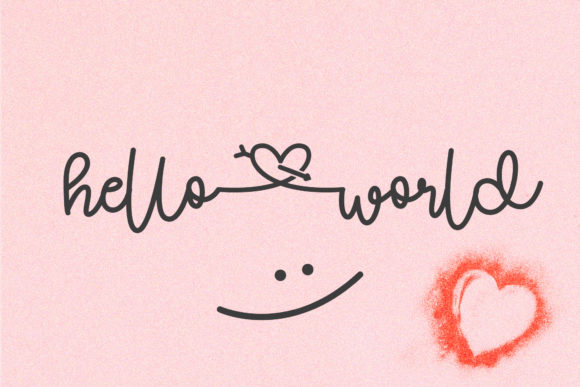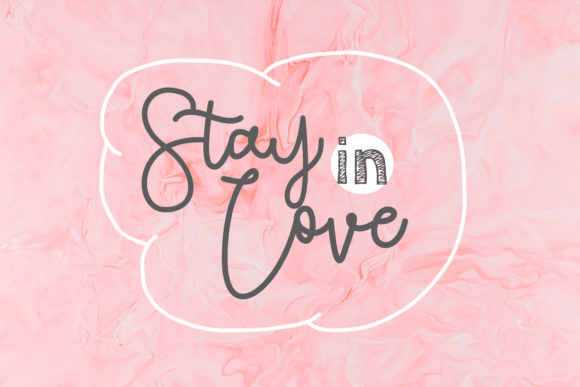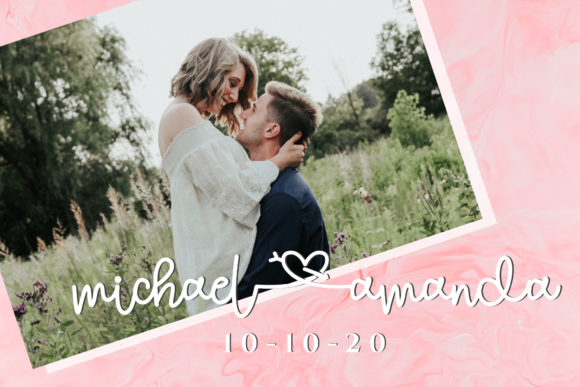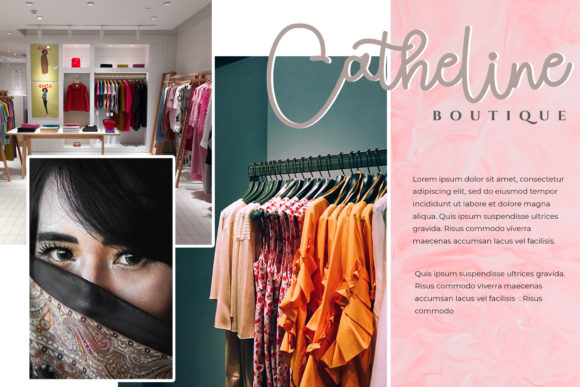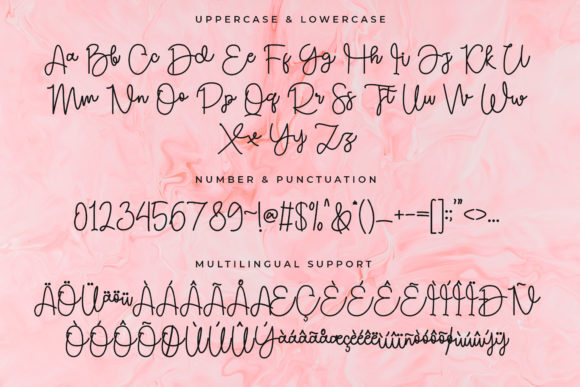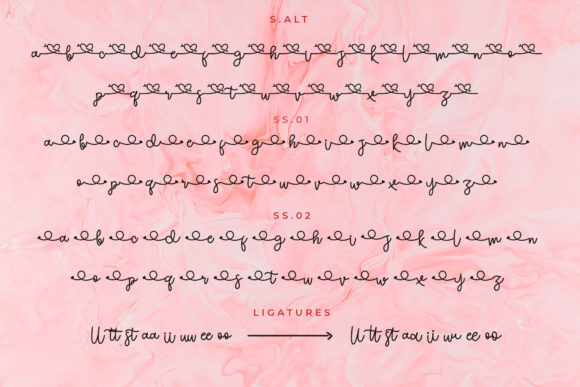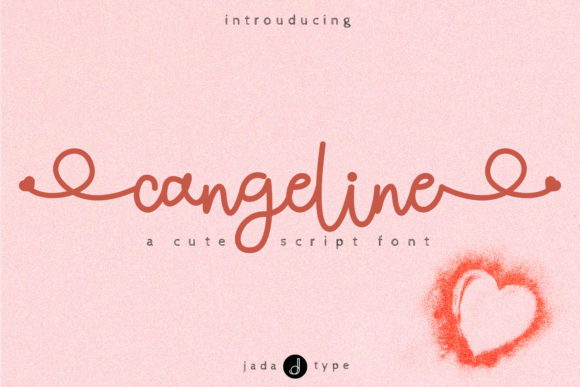
Cangeline Font: Elevate Your Designs with a Minimal and Lovely Handwritten Style
In the world of typography, fonts play a crucial role in making or breaking a design. A beautiful font can instantly elevate your creative project, adding a touch of personality and flair. If you’re on the hunt for a unique and eye-catching font, look no further than Cangeline. This minimal and lovely handwritten font is sure to bring a joyful touch to your designs, making them stand out from the crowd.
What Makes Cangeline Special?
Cangeline is more than just a pretty font – it’s a design game-changer. Its minimalistic approach to handwritten typography makes it incredibly versatile, suitable for a wide range of creative projects. Whether you’re working on a logo, branding materials, social media graphics, or even a website, Cangeline is the perfect choice. Its clean lines and delicate curves create a visually appealing aesthetic that’s both modern and elegant.
Add a Touch of Joy to Your Designs
One of the standout features of Cangeline is its ability to add a joyful touch to your designs. The font’s playful, handwritten style injects a sense of whimsy and fun into any project, making it perfect for designers who want to create something truly unique. Whether you’re designing for a children’s brand, a lifestyle company, or simply want to add some personality to your design, Cangeline is the perfect choice.
Cangeline is PUA (Private Use Area) encoded, which means that accessing all the glyphs and swashes is a breeze. PUA encoding allows designers to access a wide range of special characters, including ligatures, ornaments, and swashes, making it easy to add an extra layer of creativity to your designs. With Cangeline, you can easily access all the glyphs and swashes, giving you complete control over the look and feel of your design.
Cangeline is a font that’s perfect for both designers and crafters. Whether you’re a professional designer looking for a unique font to add to your collection, or a crafter looking for a beautiful font to use in your DIY projects, Cangeline is an excellent choice. Its versatility and ease of use make it suitable for a wide range of projects, from digital designs to handmade crafts.
Tips for Using Cangeline in Your Designs
To get the most out of Cangeline, here are a few tips to keep in mind:
- Use Cangeline as a display font to add emphasis to headings and titles.
- Pair Cangeline with a clean, sans-serif font for a striking contrast.
- Don’t be afraid to get creative with the glyphs and swashes – they’re perfect for adding a personal touch to your design.
In conclusion, Cangeline is a beautiful and versatile font that’s perfect for designers and crafters alike. Its minimal and lovely handwritten style makes it incredibly versatile, suitable for a wide range of creative projects. With its PUA encoding and easy-to-use glyphs and swashes, Cangeline is an excellent choice for anyone looking to add a touch of joy and personality to their designs. So why not give Cangeline a try and see how it can elevate your designs to the next level?
- Minimal and lovely handwritten font
- Perfect for a wide range of creative projects, from digital designs to handmade crafts
- Incredibly versatile and easy to use
- Adds a joyful touch to designs